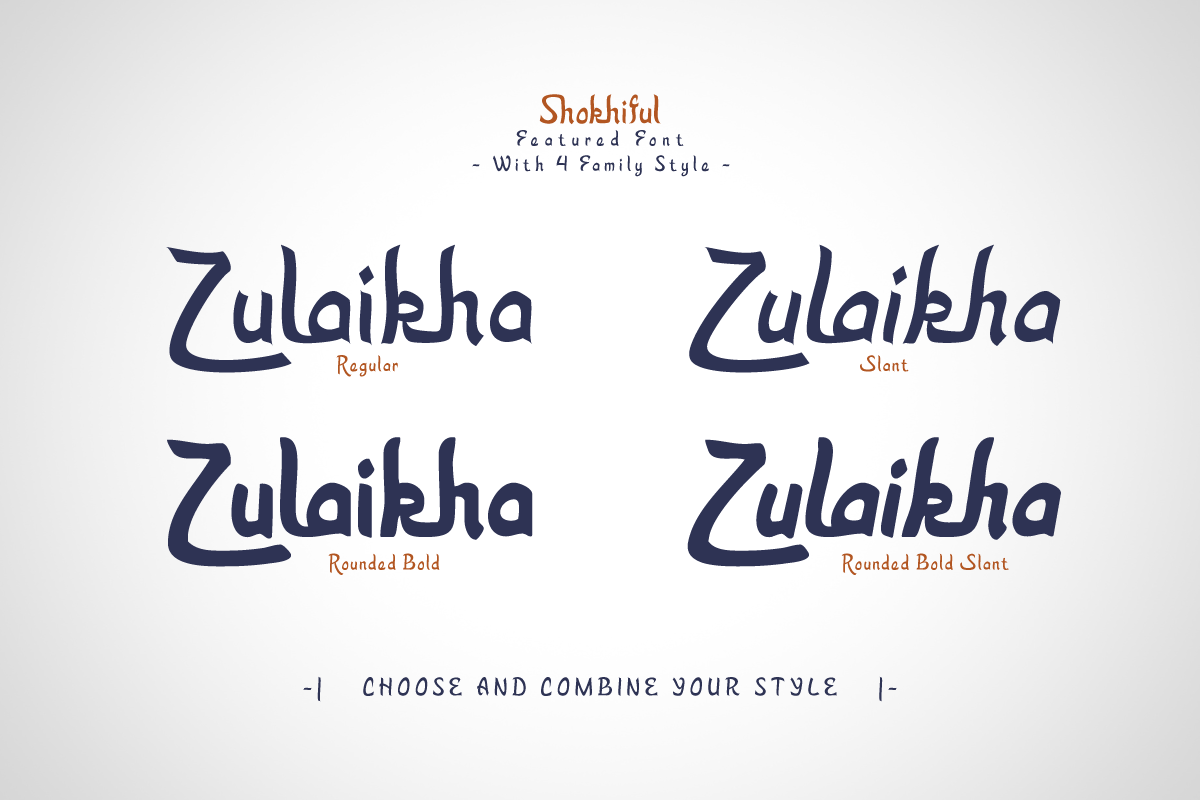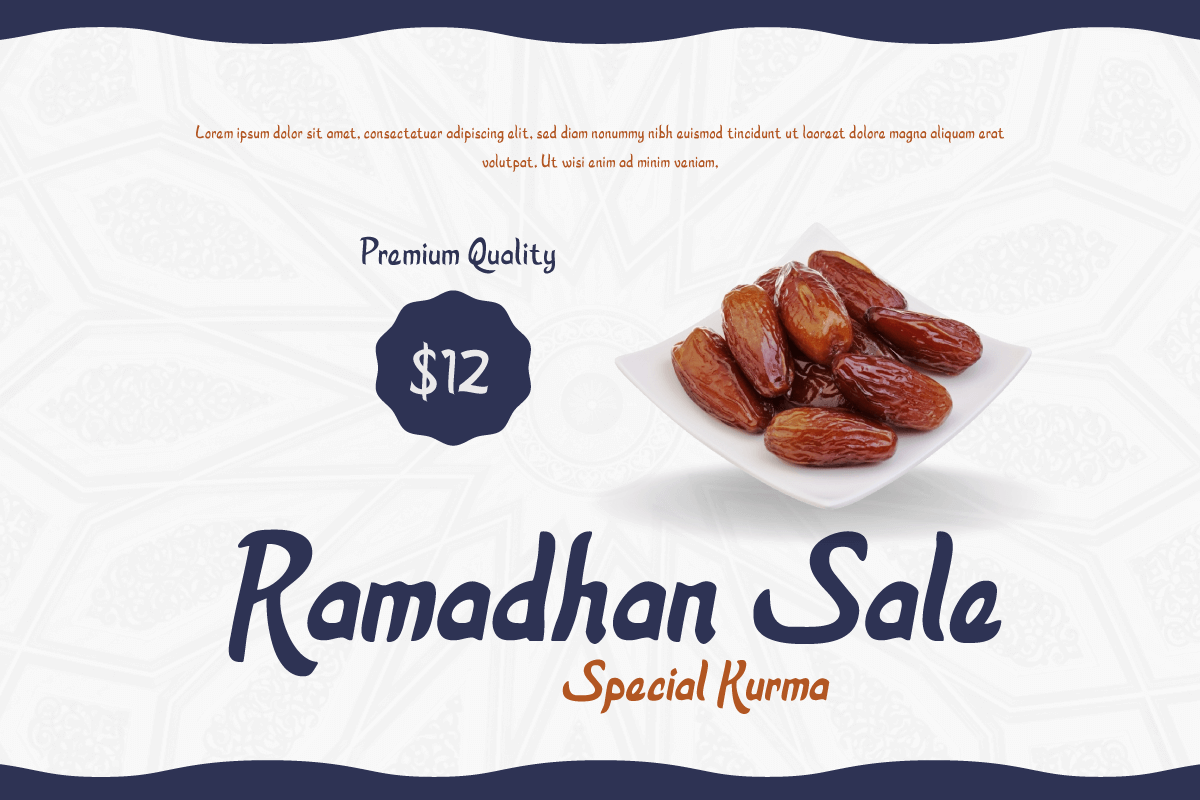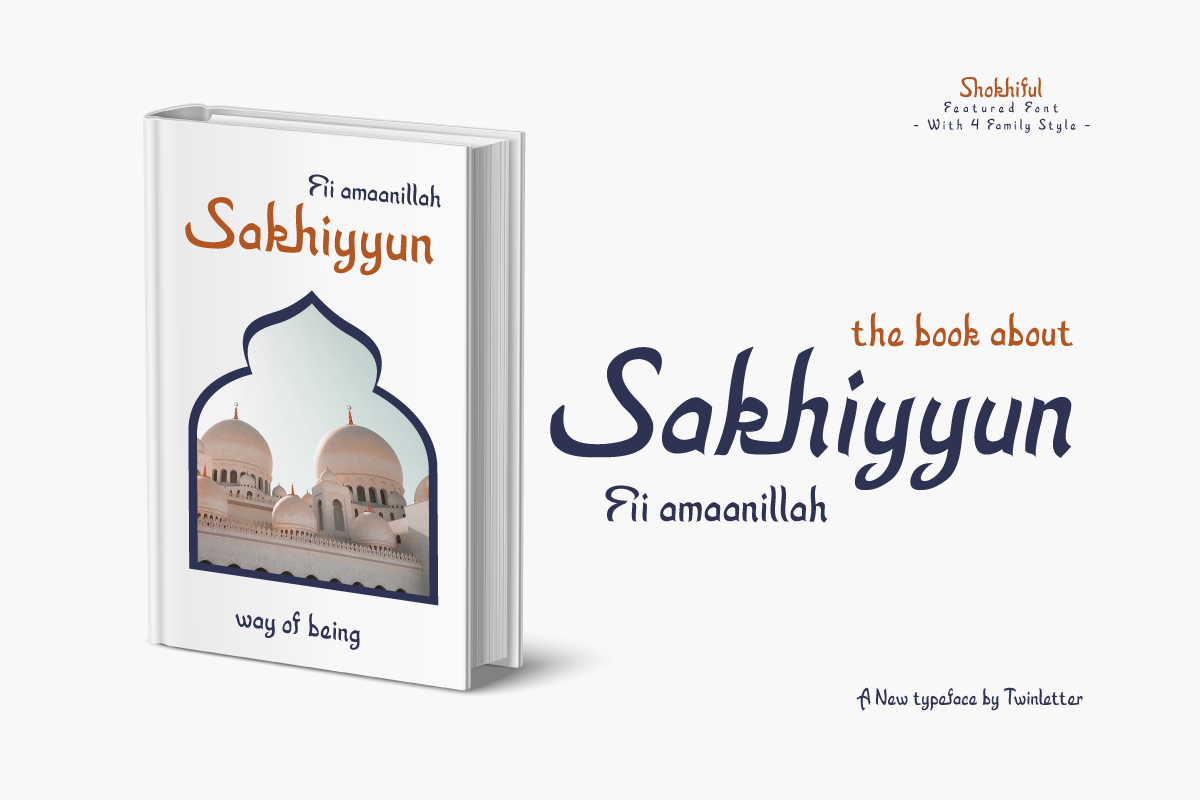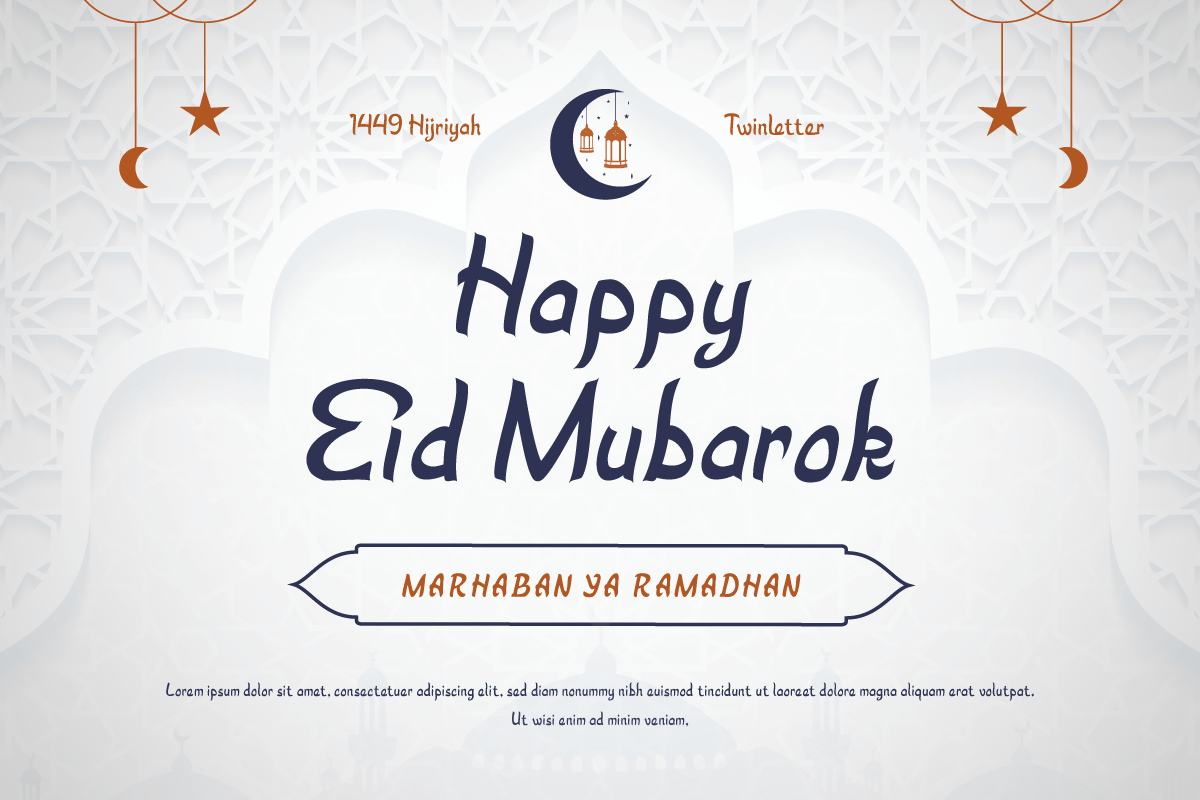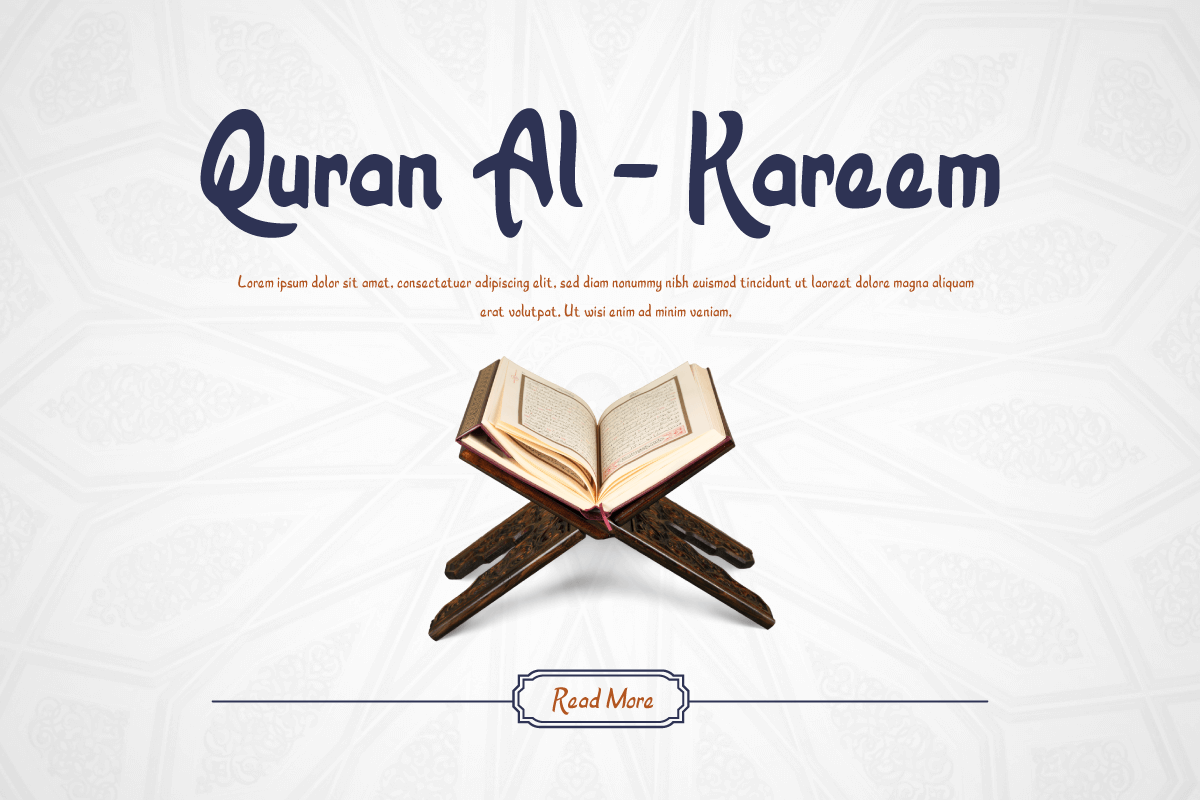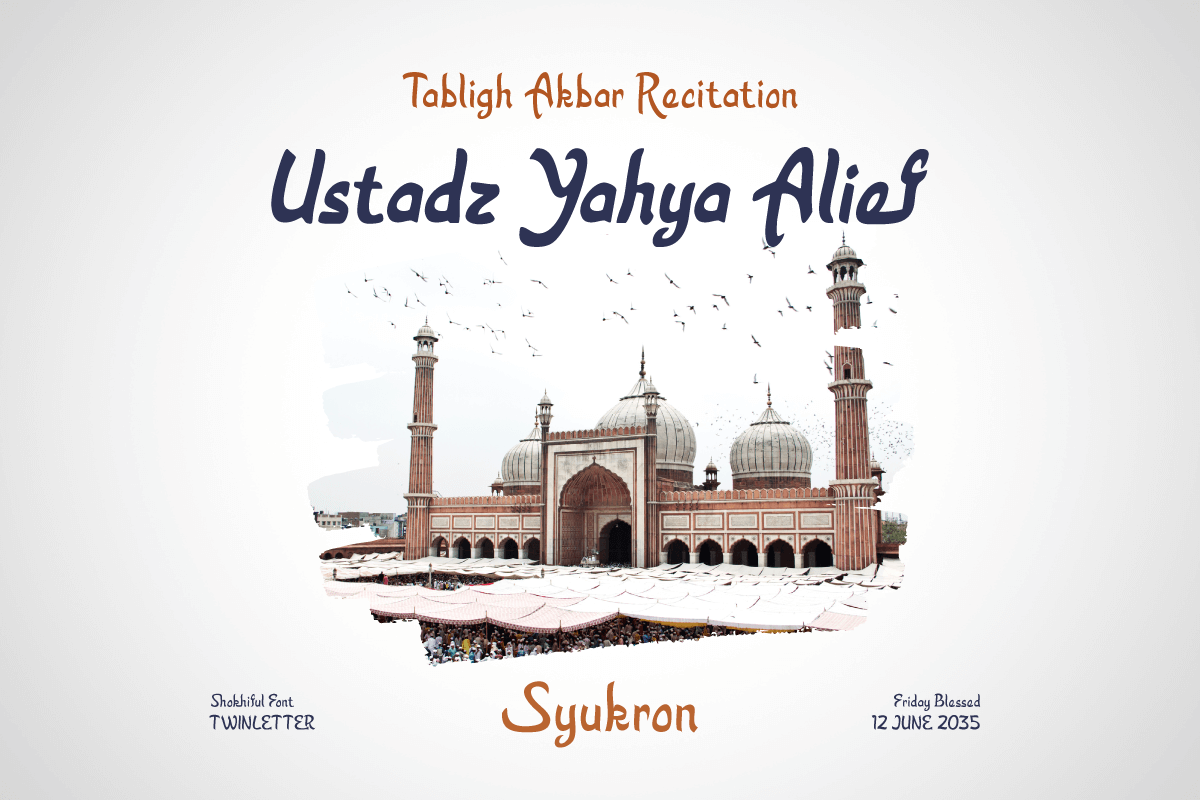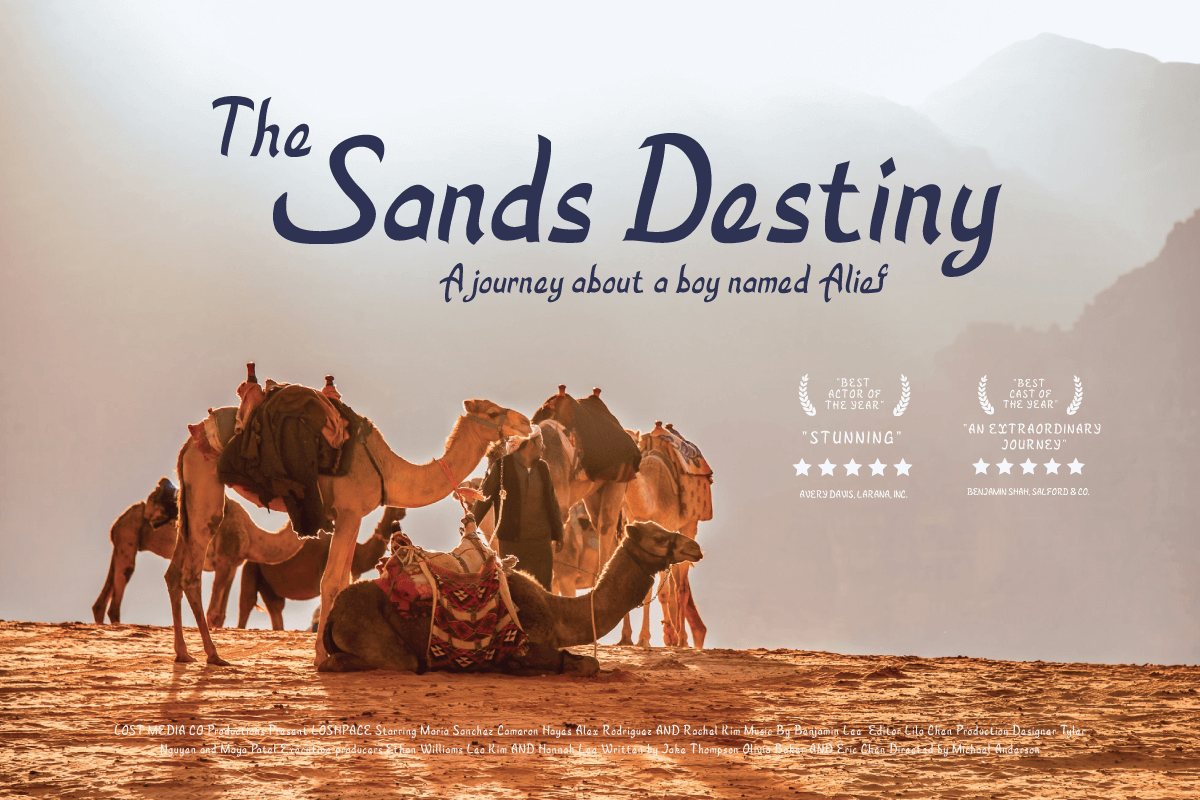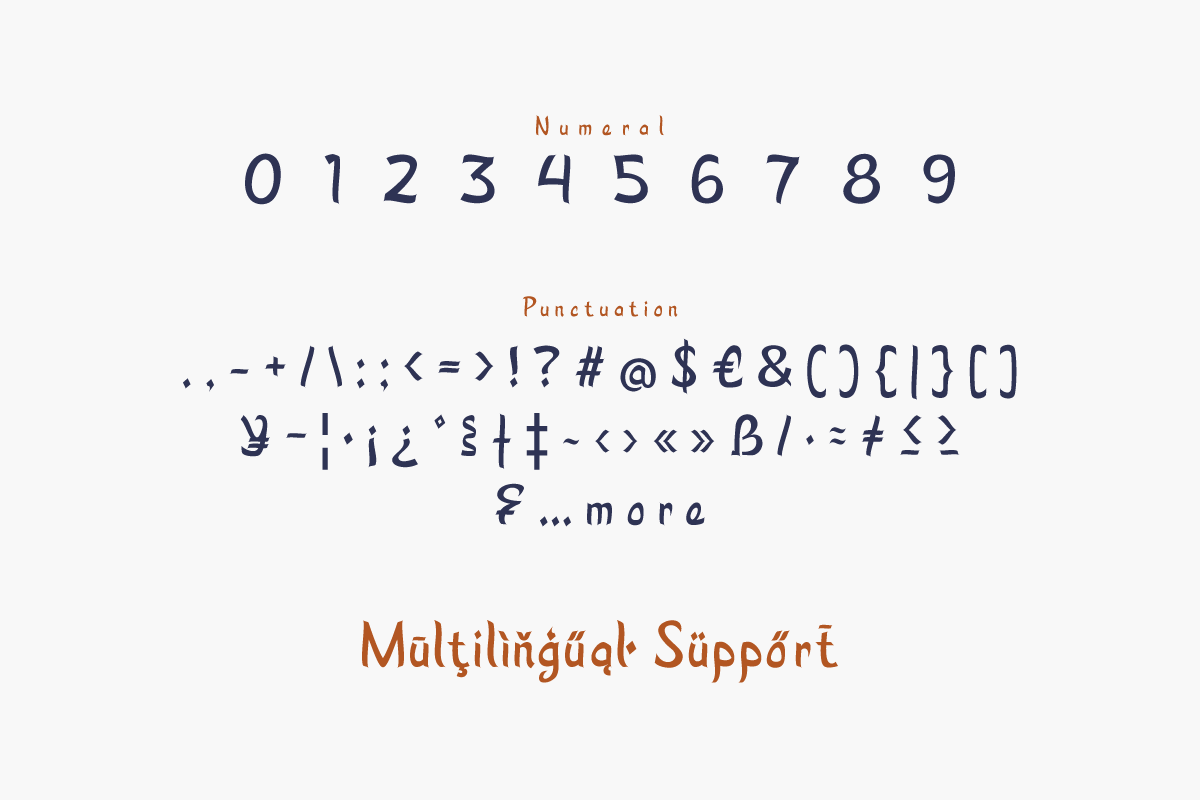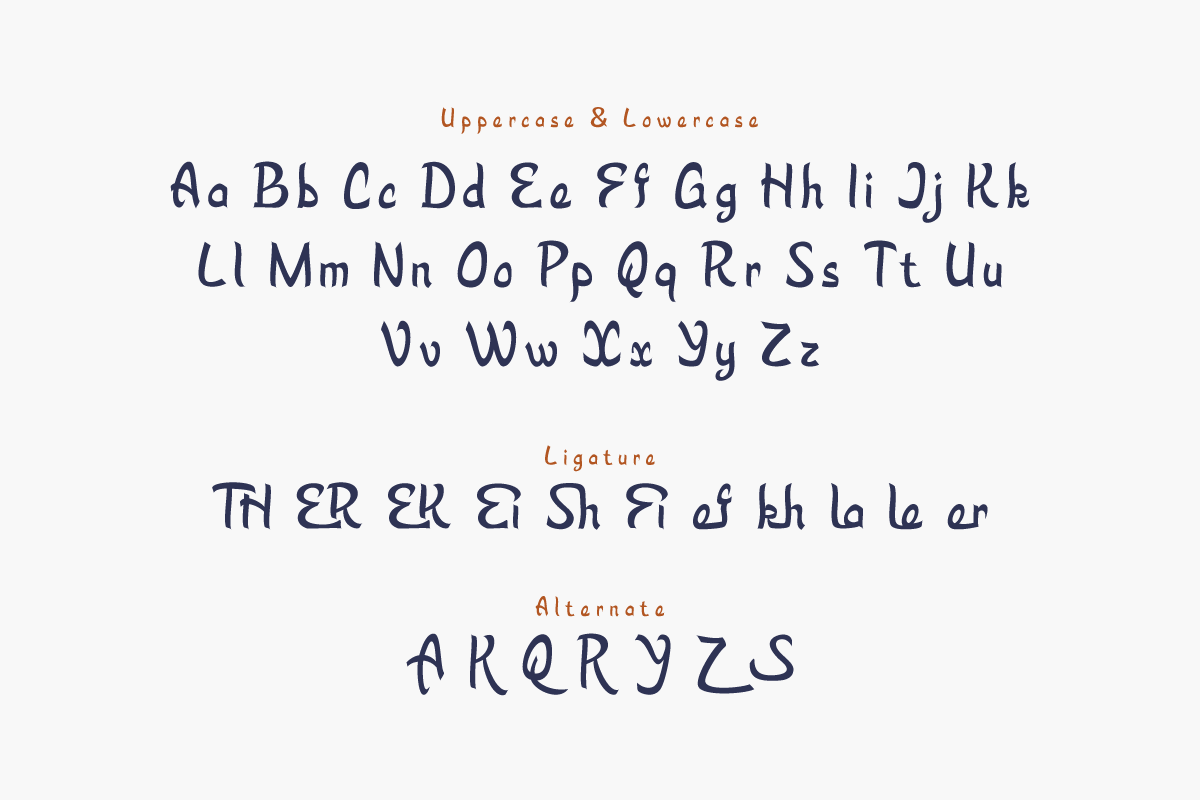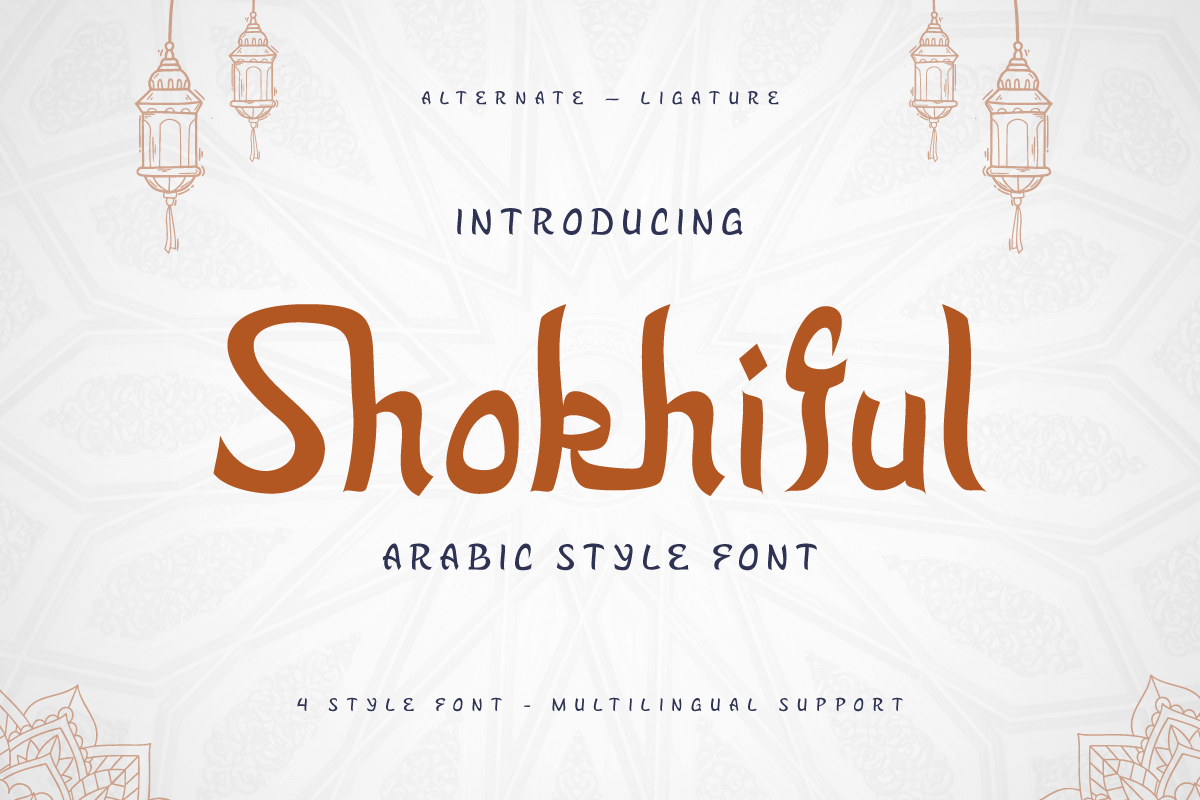
Shokhiful - Arabic Style Font
Bring the beauty of Arabic script art into your designs with Shokhiful, an Arabic-style font that exudes classic elegance and beauty. Designed with meticulous detail, each letter in Shokhiful depicts the unique art of Arabic calligraphy, bringing an exotic touch to your design projects.
Shokhiful offers the ability to convey messages with beautiful typography inspired by the traditions of Arabic script art. With flowing lines and subtle artistic elements, this font opens the door to a world of design that showcases the richness of Arab culture.
Shokhiful's strengths lie in the beauty of its proportions and its ability to integrate elegantly in a variety of design contexts. From wedding invitations to promotional materials with a Middle Eastern twist, Shokhiful allows designers to dive into the elegance of Arabic calligraphic heritage in every project.
With Shokhiful, bring an exotic and classic feel to your design works. Let each letter be an expression of art and calligraphic skill, making your designs speak the language of unparalleled Arabic beauty.